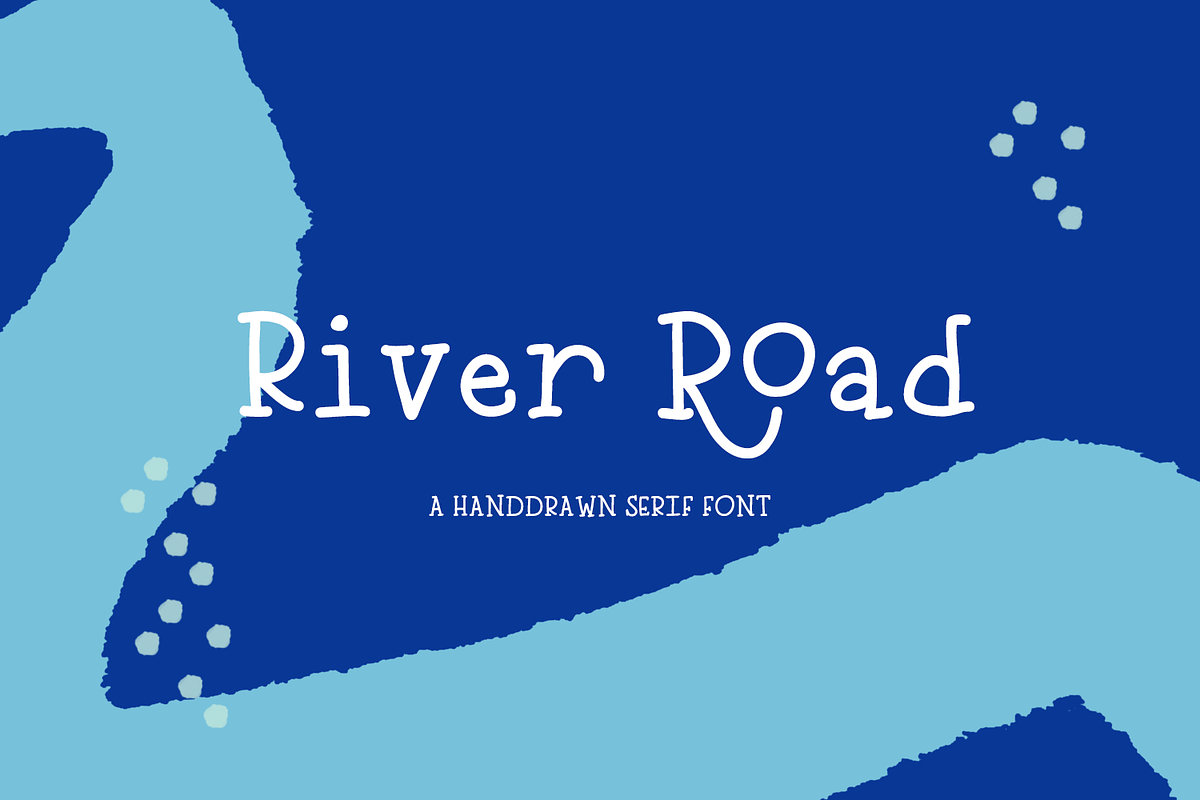
River Road Typewriter Serif Free Download
The River Road Typewriter Serif Font Free Download is a unique and vintage-inspired serif typeface that combines the classic typewriter aesthetic with a modern twist. Perfect for creating retro logos, invitations, posters, and editorial designs, this font adds a nostalgic and stylish touch to any project. Please note, for commercial use, a license must be purchased. You can download it for free for testing purposes.
With its distinctive typewriter feel and timeless serif design, the River Road Typewriter Serif Font Free Download is ideal for projects that need a mix of vintage charm and readability. Whether you're working on branding, print materials, or creative content, this font will add a sophisticated yet nostalgic vibe to your designs.